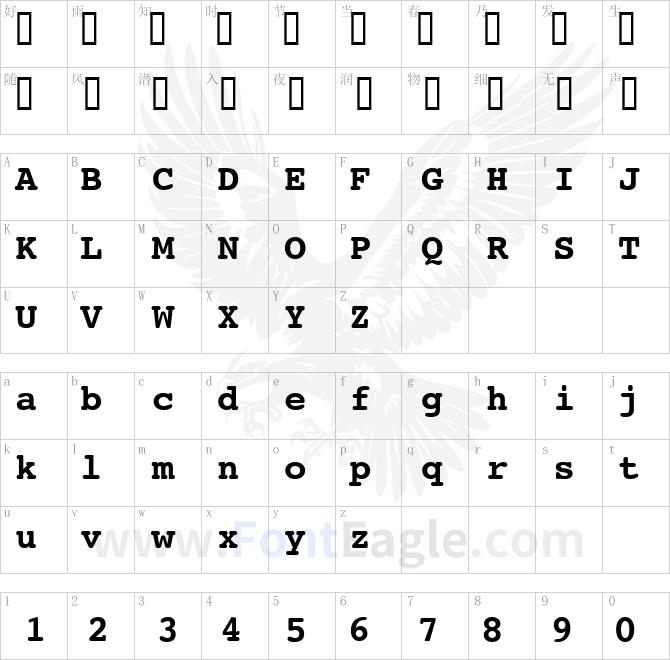
- Font name:HI Kakuhihewa
HI-Kakuhihewa-Bold is a great font, widely used in graphic design, single-page menu design, poster design and other fields, and is deeply loved by designers.HI-Kakuhihewa-Bold download.